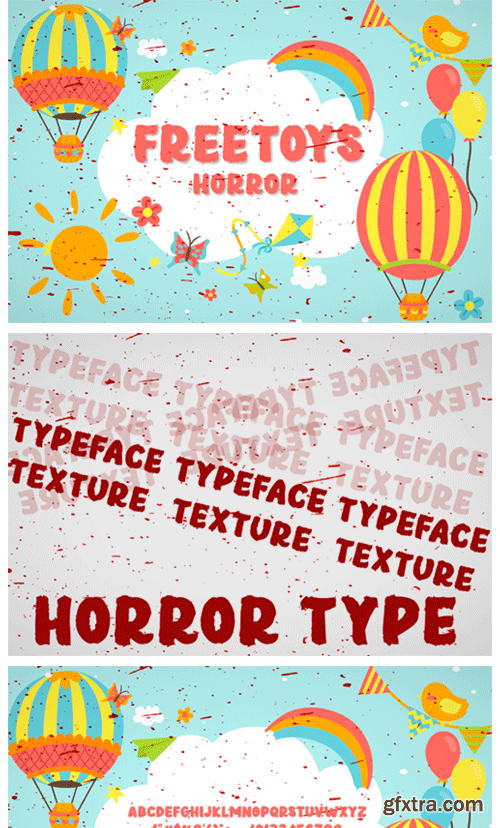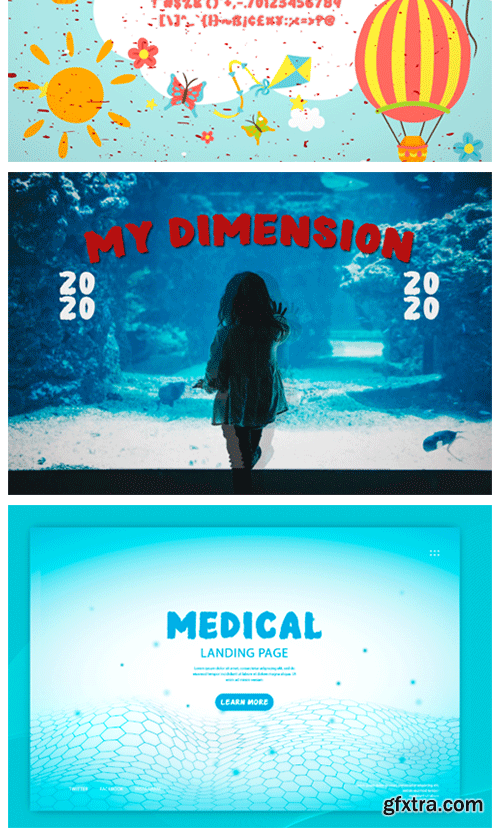
Freetoys Horror Font
Freetoys Horror is inspired by the fun of the children that is described through the arrangement of letters. This font will add a unique twist to any design!